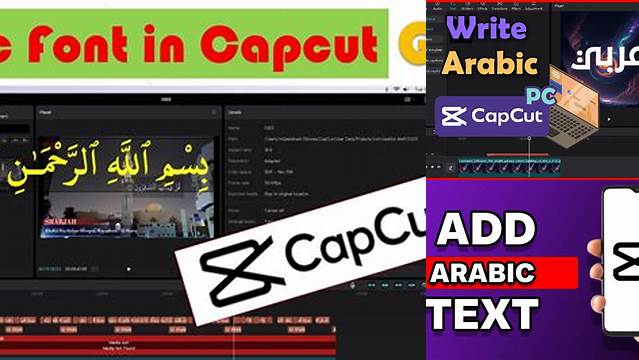
Free Arabic Fonts For CapCut: Download & Use Guide
Hey guys! Are you looking to spice up your CapCut videos with some stunning Arabic fonts? You've come to the right place! In this article, we're going to dive deep into the world of Arabic typography and show you where to find the best free fonts for CapCut, plus give you a step-by-step guide on how to use them. Let's get started!
Why Use Arabic Fonts in Your Videos?
First off, let's talk about why Arabic fonts can be a total game-changer for your video projects. Using the right font can significantly enhance the visual appeal and cultural relevance of your content. If you're creating videos that target an Arabic-speaking audience or that incorporate Arabic themes, using authentic Arabic typography is absolutely essential.
Think about it: the Arabic script is incredibly beautiful and artistic. It has a rich history and a unique aesthetic that can add a touch of elegance and sophistication to your videos. Whether you're making a travel vlog, a cultural documentary, or a promotional video for an Arabic product, the right font can help you connect with your audience on a deeper level. Moreover, using custom Arabic fonts can set your videos apart from the crowd. In a sea of generic, English-based typography, incorporating Arabic script can make your content stand out and grab viewers' attention. It shows that you've put thought and effort into your visuals, and that you respect the cultural context of your message.
But it's not just about aesthetics. The right Arabic font can also improve the readability and clarity of your text. Arabic script has its own set of rules and conventions, and using a font that's designed for this script will ensure that your text is easy to read and understand. This is especially important if you're adding subtitles, captions, or on-screen text to your videos. So, all in all, incorporating Arabic fonts into your CapCut projects is a fantastic way to elevate your video content. It adds visual appeal, enhances cultural relevance, and improves overall communication. Now, let's get to the fun part: finding those perfect fonts!
Where to Find Free Arabic Fonts for CapCut
On Windows, you can simply right-click on the font file and select "Install." This will install the font into your system fonts folder, making it available to all applications on your computer, including CapCut. Alternatively, you can open the Control Panel, go to "Fonts," and then drag and drop the font files into the Fonts folder. On a Mac, you can double-click the font file, and Font Book will open. Then, click "Install Font" at the bottom of the window. This will install the font into your system fonts library. Once the font is installed, it should be available for use in CapCut. However, sometimes you may need to restart CapCut (or even your computer) for the new fonts to show up in the font list.
Now, here's a pro tip: It's a good idea to organize your downloaded fonts into folders. This will make it much easier to find the fonts you need later on. You can create a folder specifically for Arabic fonts, or you can create subfolders based on font styles (e.g., "Traditional Arabic," "Modern Arabic"). Also, it’s important to manage your fonts well. Installing too many fonts can slow down your computer, so only install the ones you actually need. You can always uninstall fonts later if you're not using them. Once you've got your fonts installed and organized, you're ready to start using them in CapCut. Let's move on to that next!
How to Use Arabic Fonts in CapCut
Okay, you've downloaded and installed your Arabic fonts, and you're itching to use them in your CapCut videos. Let's get to it! Using Arabic fonts in CapCut is super easy, but there are a few things you should keep in mind to make sure your text looks its best. First, open up CapCut and create a new project or open an existing one. Go to the text tool and add a text layer to your video. Now, here's where the magic happens: select the text layer and look for the font selection menu. This is usually a dropdown menu or a list of fonts that you can scroll through.
So, there you have it, guys! Everything you need to know about finding, downloading, installing, and using Arabic fonts in CapCut. By incorporating beautiful and culturally relevant typography into your videos, you can take your content to the next level. Remember, choosing the right Arabic font is about more than just aesthetics; it's about conveying the right message, connecting with your audience, and adding a touch of authenticity to your visuals. With the wealth of free Arabic fonts available online, there's no limit to the creative possibilities. So, go ahead, experiment with different fonts, and find the perfect ones to make your CapCut videos truly shine. Happy creating!